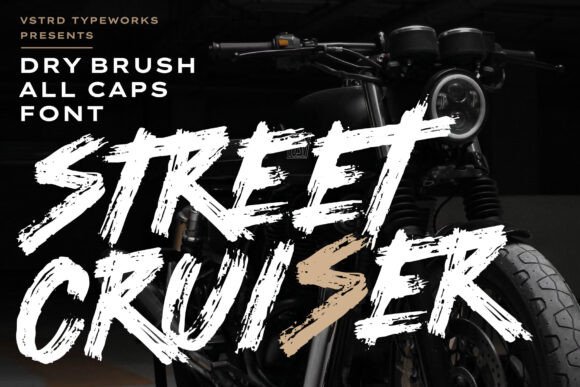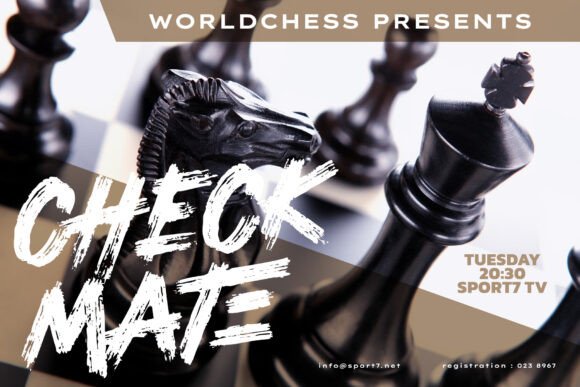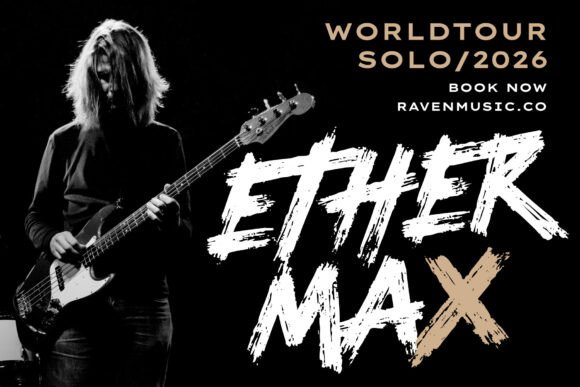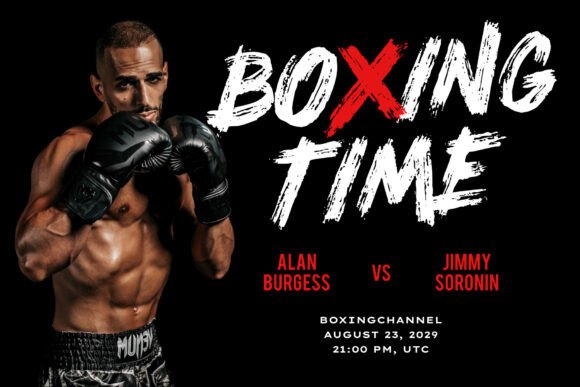
Street Cruiser Font: Bold & Grungy Dry Brush Font for Logos & Posters
About the Street Cruiser Font
Explore the possibilities with Street Cruiser Font, a font that offers both beauty and functionality. Introducing STREET CRUISER – Dry Brush Font
STREET CRUISER is a dry brush font with a bold and rough style in a dry brush texture. This texture is very detailed. Very suitable for logos, product branding, printable templates, posters, flyers, shirts, or for text overlay to any background image. STREET CRUISER is a dry brush font comes in All caps, with punctuation, numerals and ligatures.
Street Cruiser Font Usage Examples
Street Cruiser Font Example